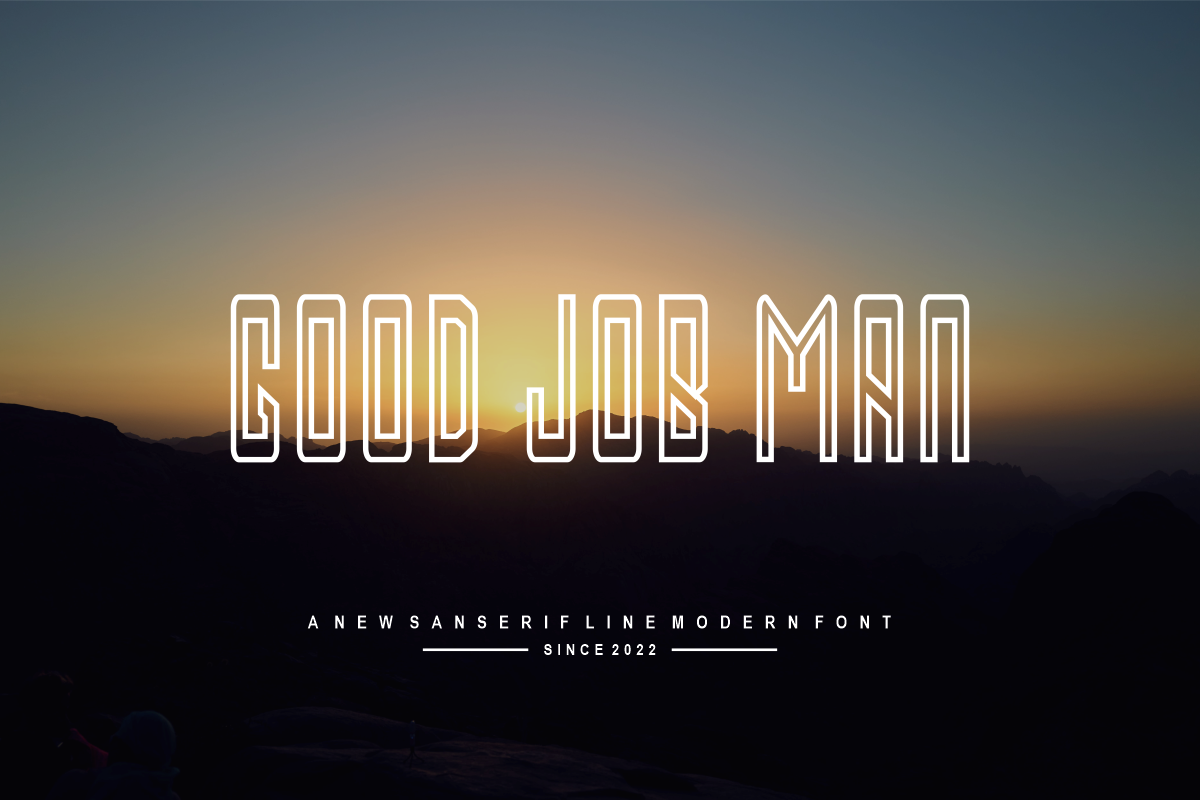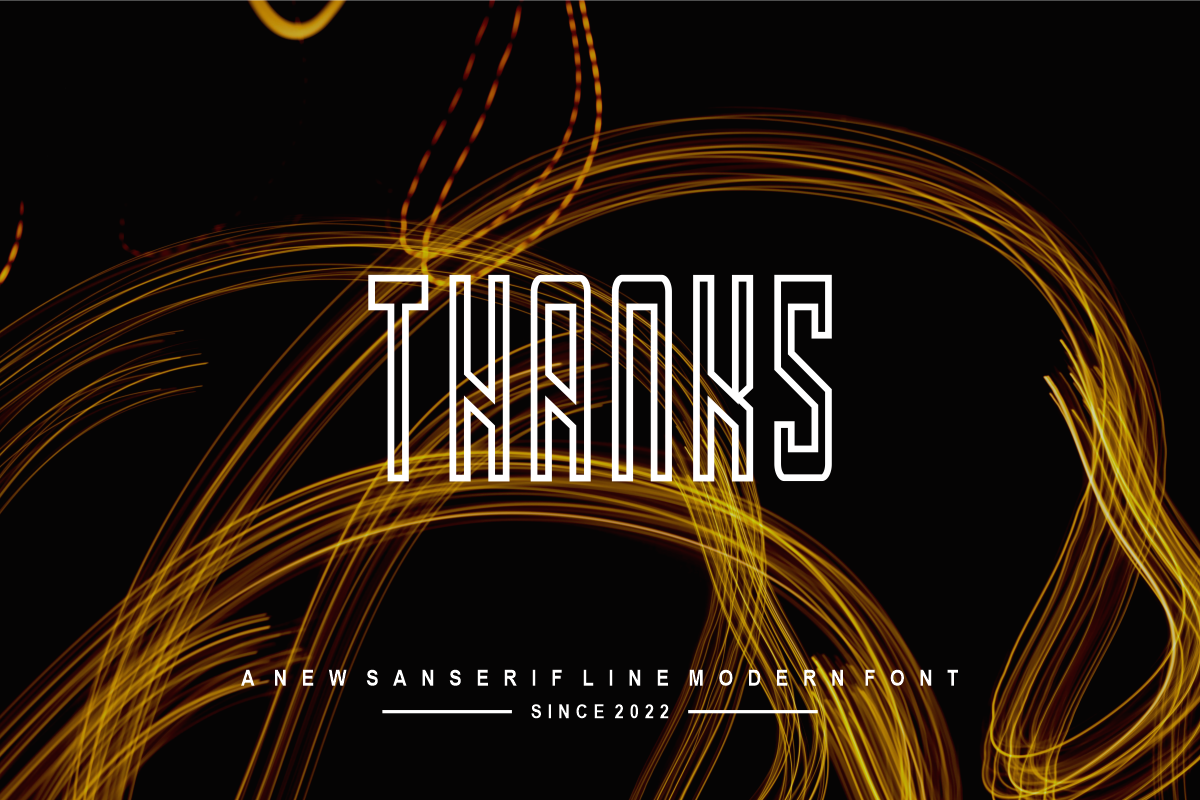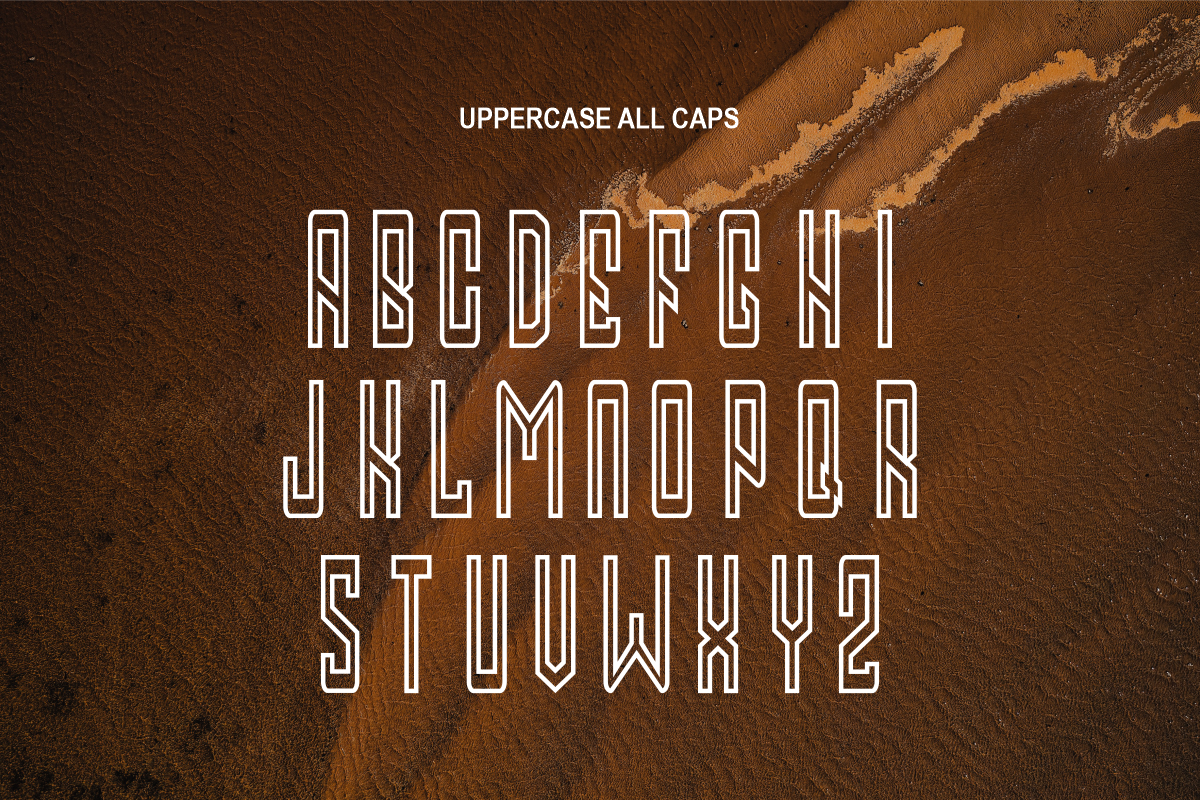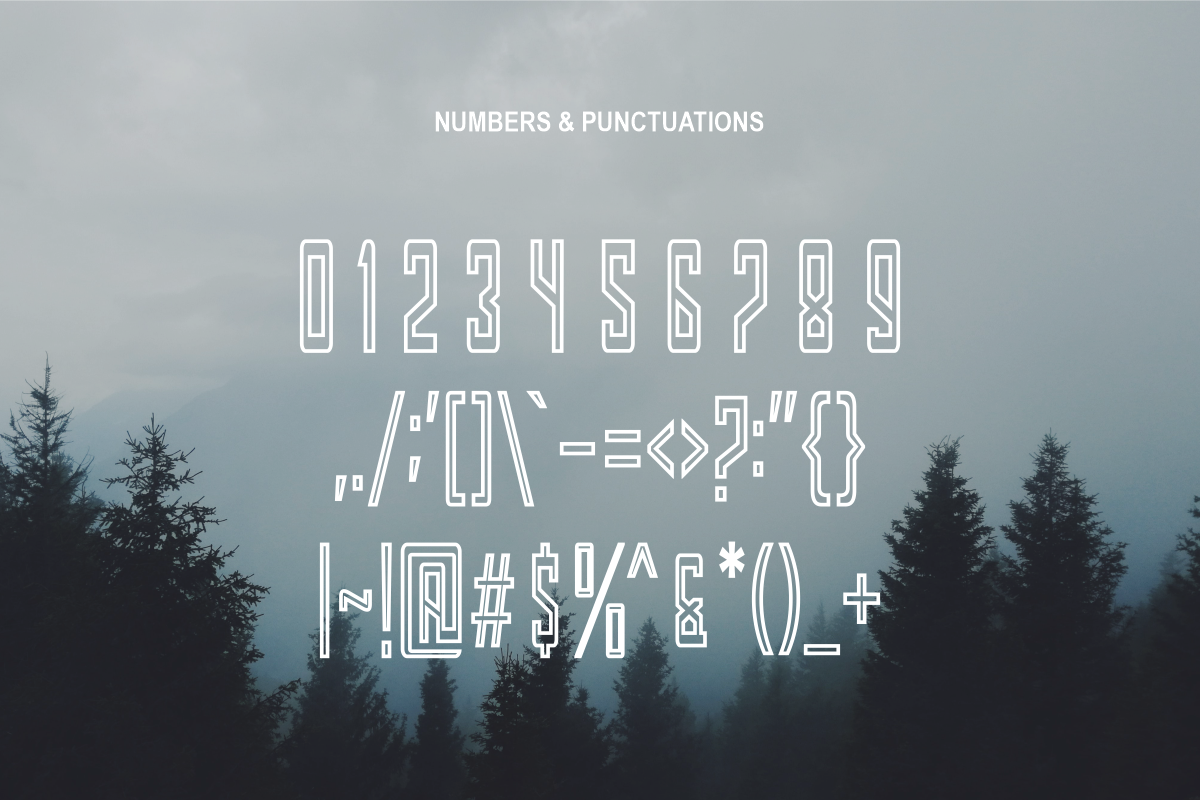
GorjandaLine
GorjandaLine is a sweet and elegant typeface. It retains a classy calligraphic influence while feeling contemporary and fresh. Fall in love with it and take your project to the highest level!